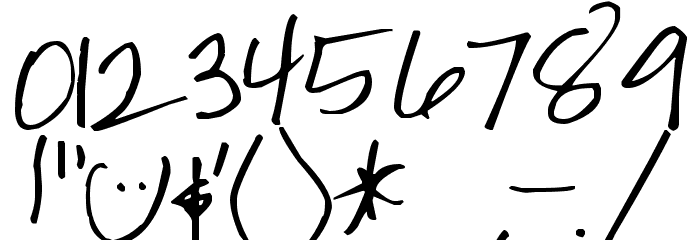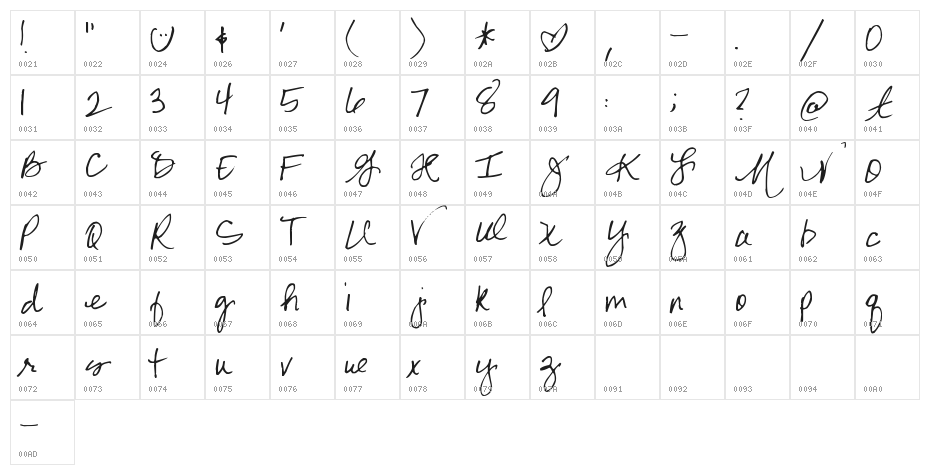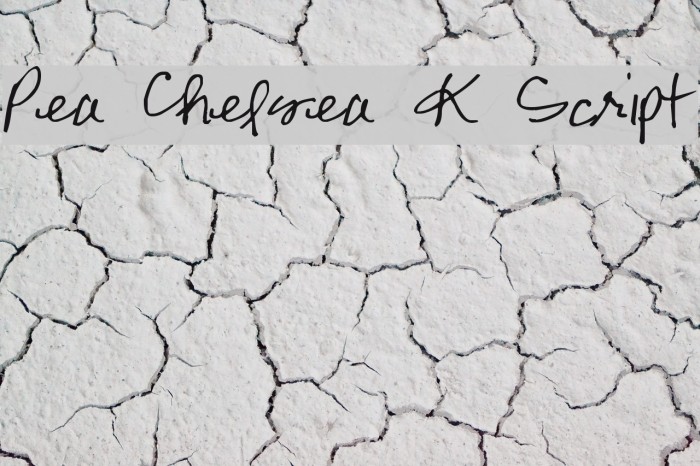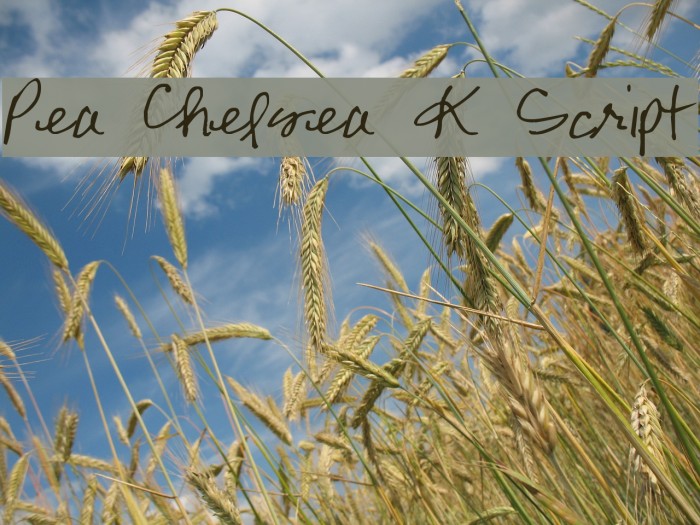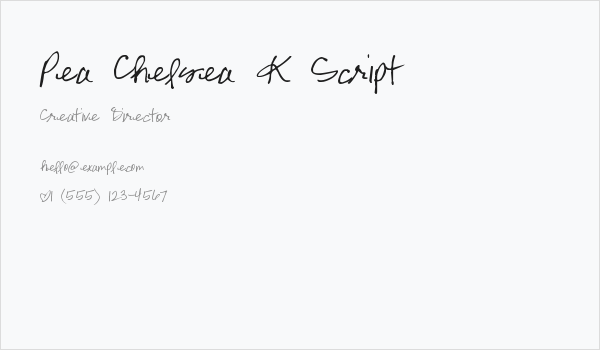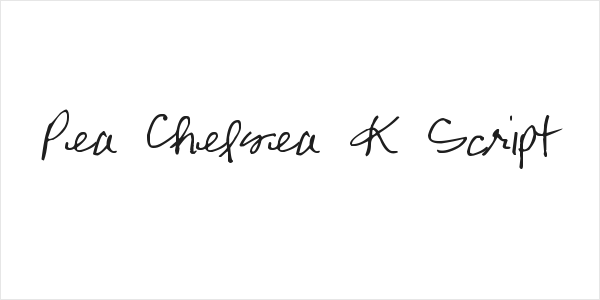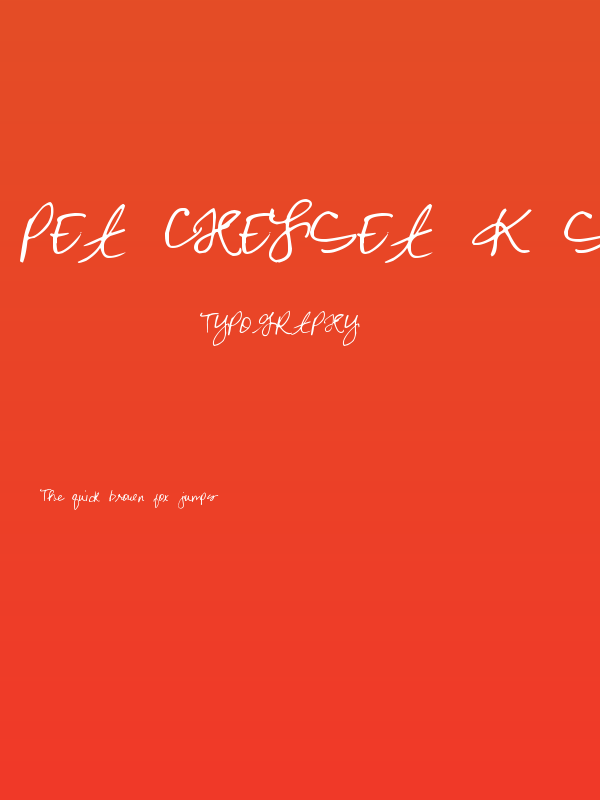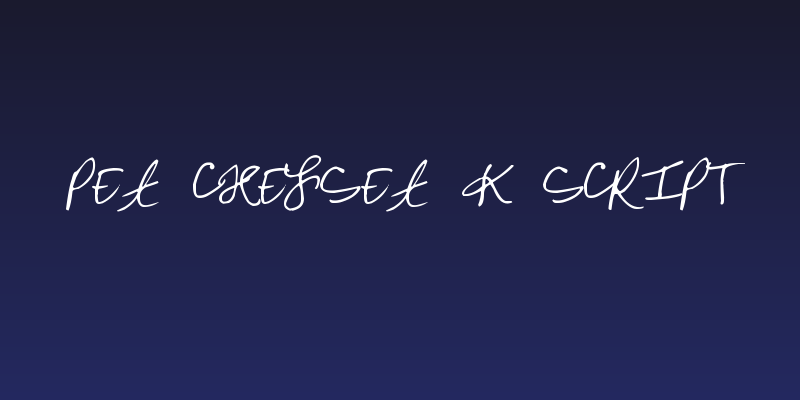
Pea Chelsea K Script Font
Pea Chelsea K Script Description
This font exhibits a lively and dynamic script style, characterized by its fluid, handwritten appearance. The uppercase letters are elegantly connected, with a slight slant that adds a sense of motion and grace. The lowercase letters maintain a consistent flow, with loops and curves that enhance its handwritten charm. The numerals and special characters are crafted with the same attention to detail, ensuring a cohesive look across all glyphs. The overall design is casual yet sophisticated, making it suitable for projects that require a personal touch.
| Overall Style | Casual, Elegant |
| Use Case | Headlines, Invitations, Personal Branding |
| Proposed Projects | Ideal for wedding invitations, personal branding, greeting cards, and creative projects that require a personal, handwritten touch. |